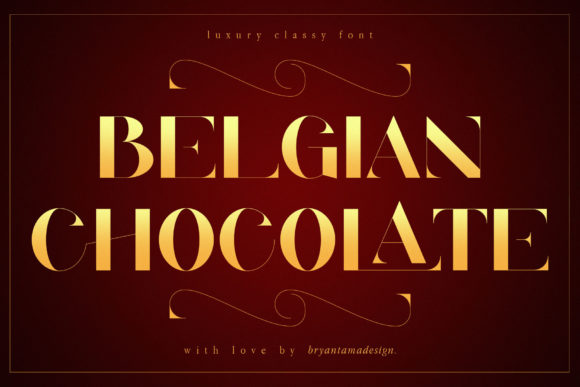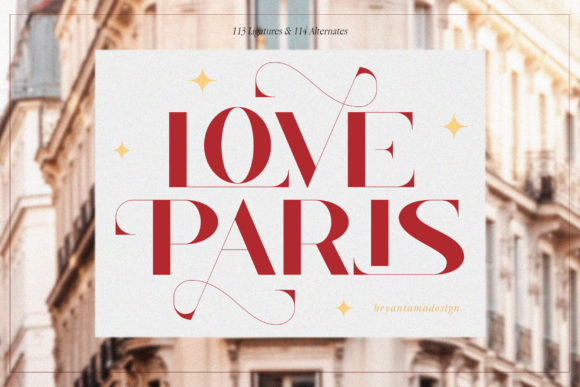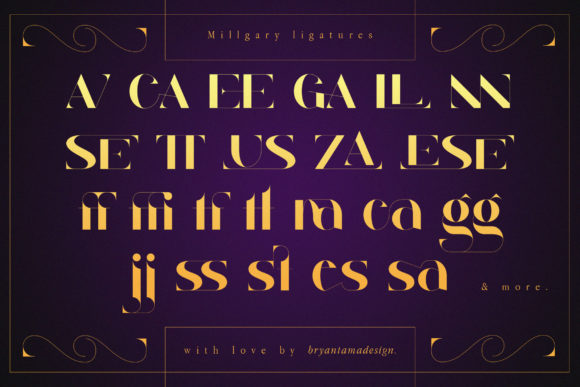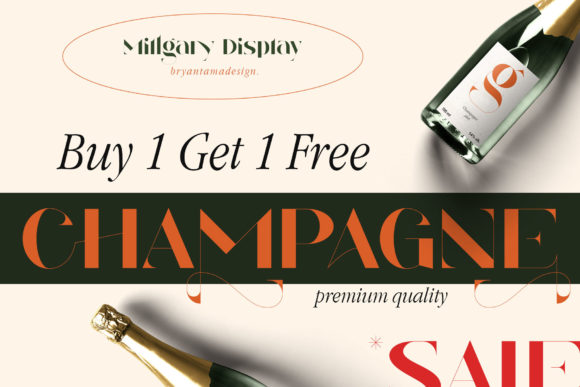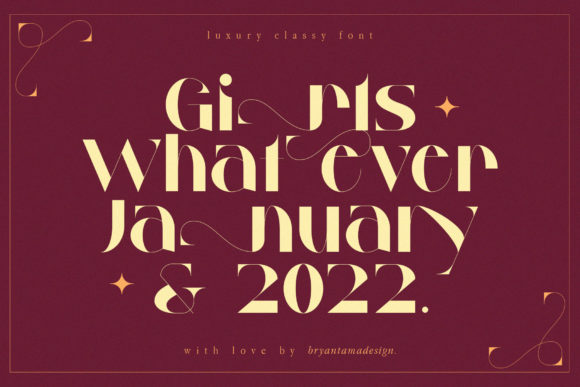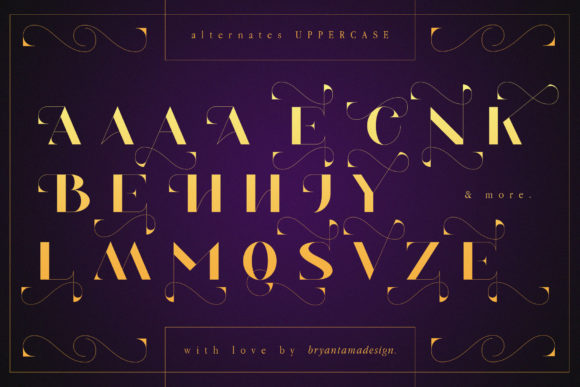
Introduction to Millgary Font
Imagine you’re working on a creative project and you’re searching for the perfect font to add that extra oomph to your design. You’ve scrolled through countless design resources, but none of them seem to capture the essence you’re looking for. That’s when you stumble upon the Millgary Font – a stylish display font that’s about to change the game.
With its high-quality design and PUA encoded glyphs, the Millgary Font is a valuable resource for designers. Not only can you access all of the glyphs and swashes with ease, but you can also customize them to fit your unique design needs. Whether you’re working on a commercial project or a personal creative endeavor, the Millgary Font is sure to impress.
Key Features of Millgary Font
- High-quality design resource suitable for creative projects, offering a modern and sleek aesthetic.
- Features a transparent background, allowing for seamless integration with other design elements.
- Designed with a clear and legible style, making it perfect for use in digital and print media.
Honest Review: Millgary Font
As a designer, I’m always on the lookout for high-quality design resources that can elevate my creative project. The Millgary Font is one such find that has caught my attention.
- ✨ Clean and minimalist design aesthetic that’s perfect for modern branding and design projects.
- ✨ Highly legible and versatile font that can be used in a variety of creative contexts.
- ⚠️ Limited character set, which may not be suitable for longer blocks of text.
- ⚠️ Transparent background may require additional design considerations when used in certain contexts.
Overall, I’m impressed with the Millgary Font. Its clean design and versatility make it an excellent choice for designers who want a high-quality font for their creative project. While it may have some limitations, it’s definitely worth considering for your next design project.
Millgary Font: A High-Quality Design Resource
Millgary Font is a versatile design resource that can be used in a variety of creative projects, including logos, brochures, and business cards. The font’s transparent background makes it easy to use in projects that require a high level of design flexibility.
Tips for Getting the Most Out of Millgary Font
To get the most out of Millgary Font, consider the following tips: use the font in combination with other design elements to create a cohesive look, experiment with different font sizes and colors to add visual interest, and use the font’s transparent background to create a sense of depth and dimension.
Is Millgary Font suitable for digital and print projects?
Yes, Millgary Font is suitable for both digital and print projects. Its high-resolution design ensures that it looks great in print, while its scalable design makes it perfect for digital applications. Whether you’re designing a logo, a brochure, or a website, Millgary Font is a great choice for your creative project.